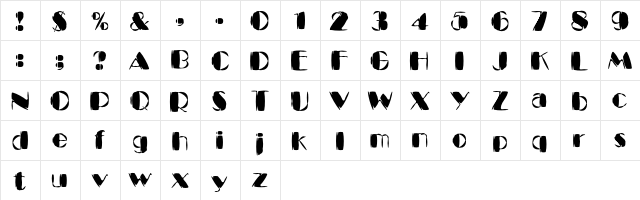
Kaptain Kirk
Design Context for Kaptain Typeface
Kaptain is a composed and adaptable typeface that performs quietly and consistently across a wide range of design contexts.
Pro Tip: Use Kaptain in both headline and body roles to test its range before committing to a single application.